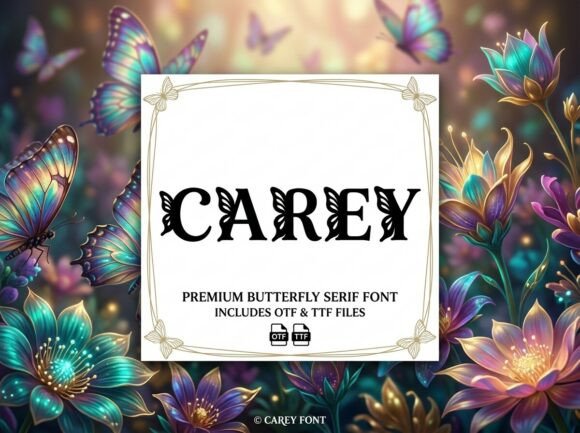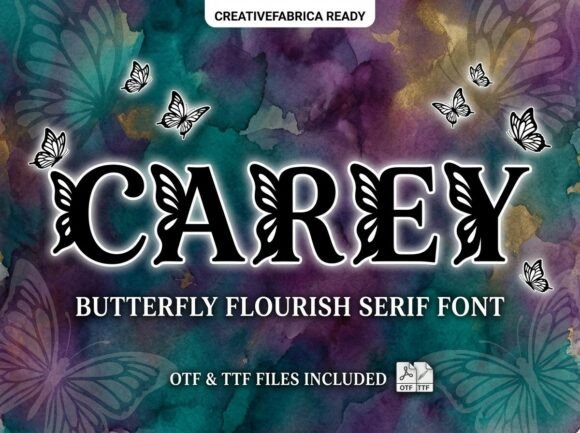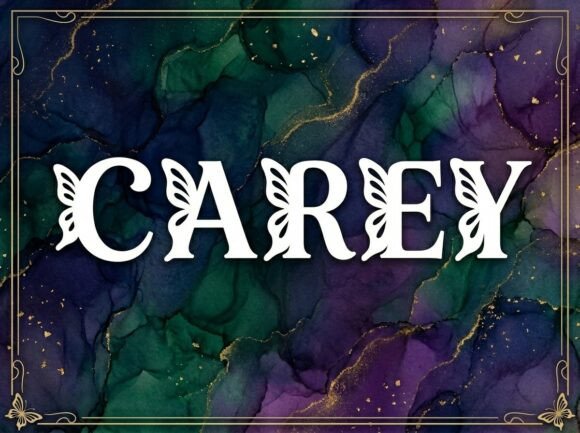
Introducing Carey Font: Whimsy and Wonder in Every Letter
In the world of typography, few fonts capture the essence of whimsy and wonder as beautifully as Carey. This stunning display typeface is designed to transport your designs to a world of enchantment, where the organic and the modern blend seamlessly together. With its bold, sturdy letterforms and delicate, hand-drawn serifs, Carey is the perfect choice for designers and crafters looking to add a touch of magic to their work.
The Unique Charm of Carey Font
Carey Font is characterized by its rhythmic, hand-drawn “butterfly wing” serifs, which give it a distinctive and captivating personality. These serifs bridge the gap between organic nature illustration and modern boutique branding, making Carey a versatile font that can be used in a wide range of design applications. Whether you’re creating a logo for a garden boutique, a children’s apparel brand, or a magical event invitation, Carey is sure to make your design stand out.
A Font that Embodies Contrasts
One of the most striking features of Carey Font is its ability to balance heavy structural weight with an ethereal personality. This contrast gives Carey a unique and captivating presence, making it perfect for designs that require both impact and elegance. Whether you’re looking to create a bold statement or a delicate whisper, Carey has the versatility to adapt to your design needs.
Carey Font is a dream come true for designers and crafters who want to add a touch of whimsy and wonder to their work. With its bold, sturdy letterforms and delicate serifs, Carey is perfect for a wide range of design applications, including:
- Independent garden boutique identities
- Boutique children’s apparel logos
- Magical event invitations
- High-impact social media headers
Bringing Your Designs to Life
With Carey Font, you can bring your designs to life in a way that’s both visually stunning and emotionally resonant. Whether you’re creating a logo, a poster, or a social media graphic, Carey has the power to transform your design into a work of art that captures the hearts of your audience. So why settle for a ordinary font when you can have a font that truly extraordinary?
Key Features of Carey Font
Here are just a few of the key features that make Carey Font so special:
- Bold, sturdy letterforms: Carey Font features bold, sturdy letterforms that are perfect for making a statement.
- Hand-drawn “butterfly wing” serifs: The delicate, hand-drawn serifs on Carey Font give it a unique and captivating personality.
- Heavy structural weight: Carey Font has a heavy structural weight that gives it a sense of solidity and presence.
- Ethereal personality: Despite its bold weight, Carey Font has an ethereal personality that makes it perfect for designs that require a touch of whimsy and wonder.
In conclusion, Carey Font is a truly unique and captivating typeface that has the power to transform your designs into works of art. With its bold, sturdy letterforms, delicate serifs, and ethereal personality, Carey is the perfect choice for designers and crafters who want to add a touch of magic to their work. So why wait? Download Carey Font today and discover a world of whimsy and wonder in every letter.